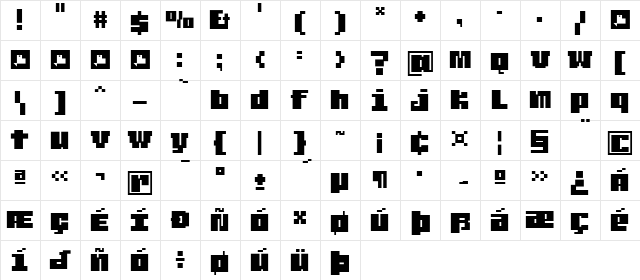
Judera Flat Regular
| Foundry | deFharo |
| Designer | Fernando Haro |
Design Context for Judera Flat Typeface
Judera Flat takes a measured approach to typography — its balanced proportions and neutral character make it a reliable workhorse for both digital and print work.